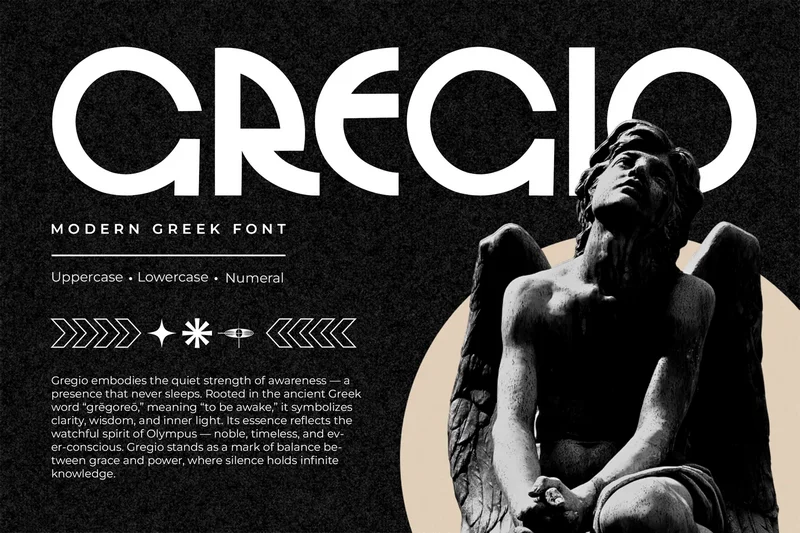
Gregio – Modern Greek Font
Gregio is a modern Greek font that reimagines the beauty of ancient Greek lettering through a sleek, contemporary lens. With clean lines, balanced proportions, and a refined geometric style, Gregio bridges classical heritage with modern design aesthetics.
Perfect for logos, branding, editorial design, posters, and cultural projects, this typeface delivers both sophistication and versatility. Whether you’re designing for fashion, art, or history-themed visuals, Gregio brings a sense of tradition and modern minimalism that stands out effortlessly.